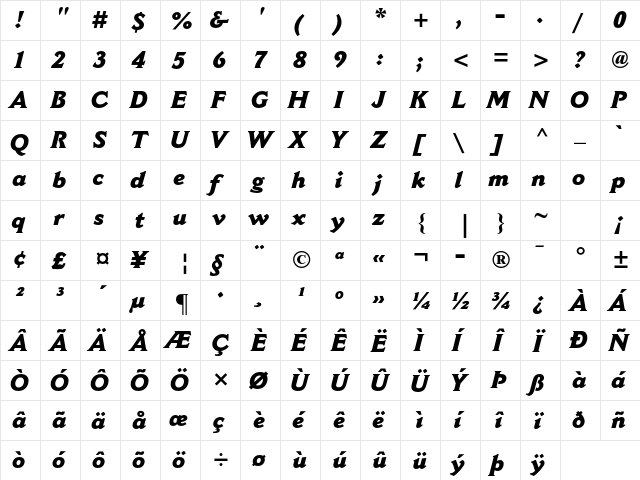
Cantoria MT Std Extra Bold Italic Font Preview
| Designer | Ron Carpenter |
Design Context for Cantoria MT Std Typeface
Cantoria MT Std takes a measured approach to typography — its balanced proportions and neutral character make it a reliable workhorse for both digital and print work. Its italic angle brings a sense of urgency and motion to the letterforms. The heavy weight commands attention and anchors typographic hierarchies.
First published in 1992, this typeface is available in OpenType (OTF) format.
Pro Tip: Try Cantoria MT Std for annotation and caption copy alongside an upright companion — the contrast in angle creates a dynamic but ordered typographic system.